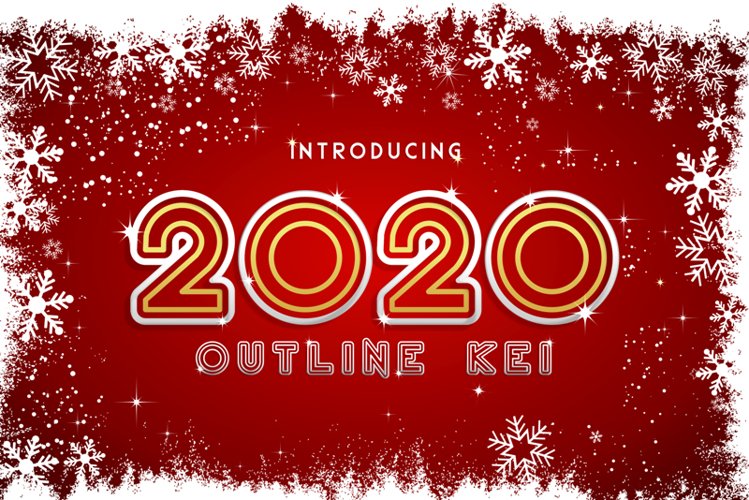
2020 Outline Kei
2020 Outline Kei font is perfect for your new year's project. A new font looks with the feel of the new year 2020 and winter in outline style, perfect for this year's amazing new year project. It is beautiful and elegant in many ways!